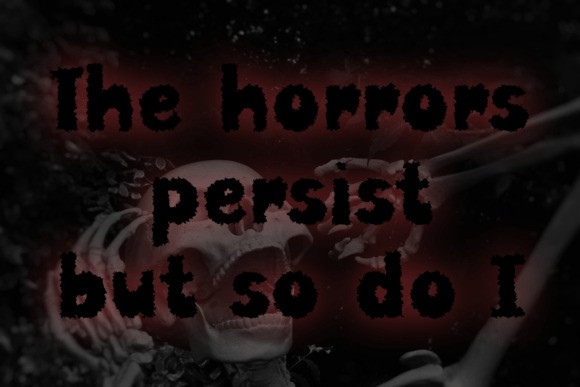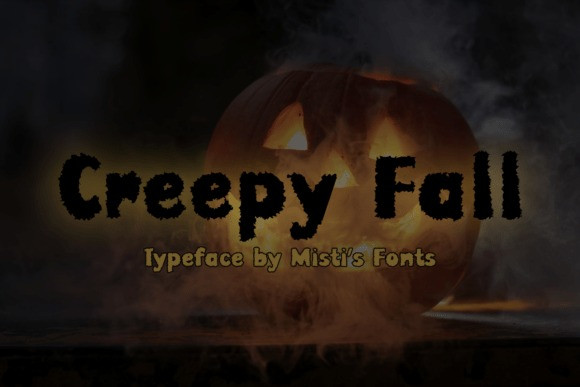
Creepy Fall Font is a textured display font designed to send chills down your spine—while still keeping things fun and festive.With its jagged, irregular edges and blotchy, ink-like texture, this font mimics the look of creepy shadows creeping through the fog. It’s the perfect blend of spooky and playful, making it ideal for Halloween designs that aim to be eerie but not too intense.
Whether you’re designing a haunted corn maze poster, trick-or-treat printables, or eerie social media content, Creepy Fall adds a bold, mysterious presence. The soft roundness of the letterforms, combined with its textured finish, gives it a cartoon-horror vibe—perfect for children’s Halloween materials, seasonal school flyers, or themed DIY crafts. It reads well both on digital screens and in print, especially against dark or glowing backgrounds like jack-o’-lanterns and misty autumn settings.